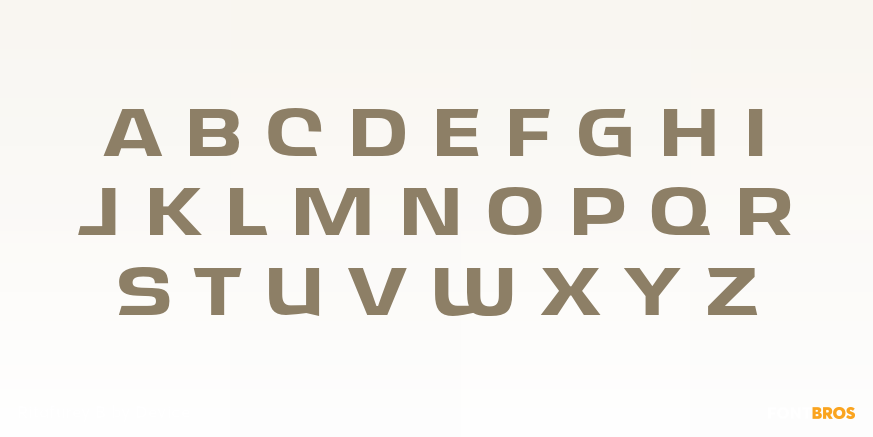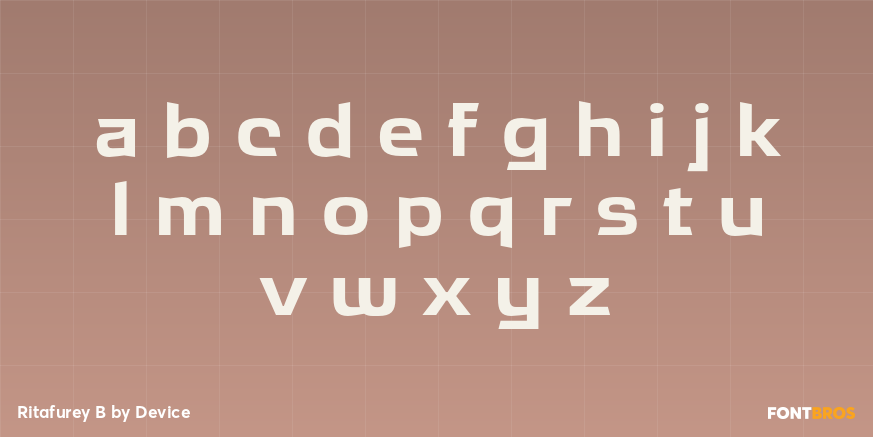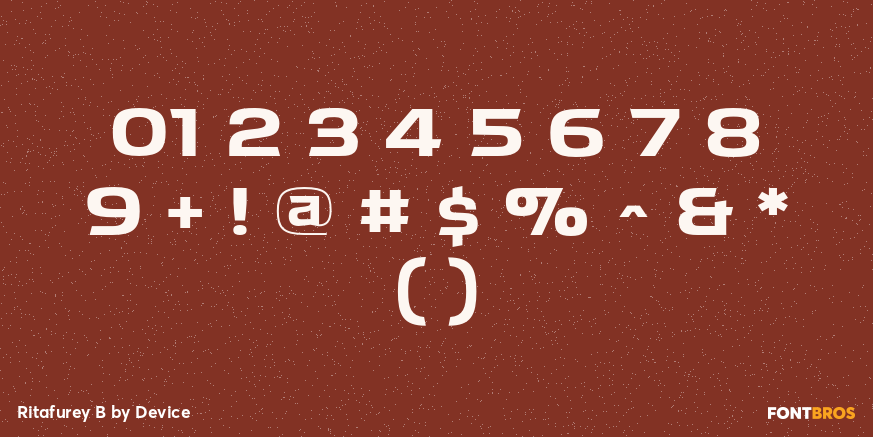
Ritafurey B
Font Family by Device
Ritafurey B is a futuristic sans serif family with a clean, forward-looking voice. Its mix of thin, light, and demi bold weights, plus matching italics, gives it a sleek technical feel that reads as modern without losing clarity.
This family includes 6 styles: Thin, Thin Italic, Light, Light Italic, Demi Bold, and Demi Bold Italic. That range makes it useful for display-driven systems that need contrast and motion, whether you are building branding, poster typography, packaging, social graphics, or other contemporary design work.
Designed by Device, it is a strong choice when you want a streamlined sans serif with a distinctly futuristic edge. The lighter cuts feel airy and precise, while the demi bold styles bring more presence for headlines and standout type treatments.